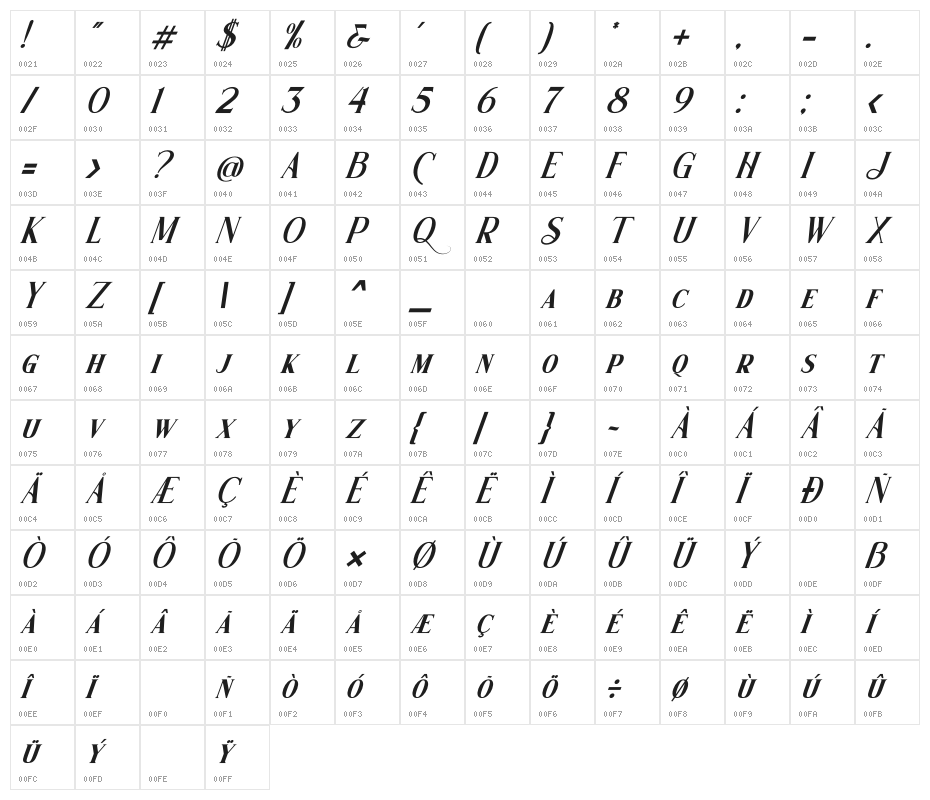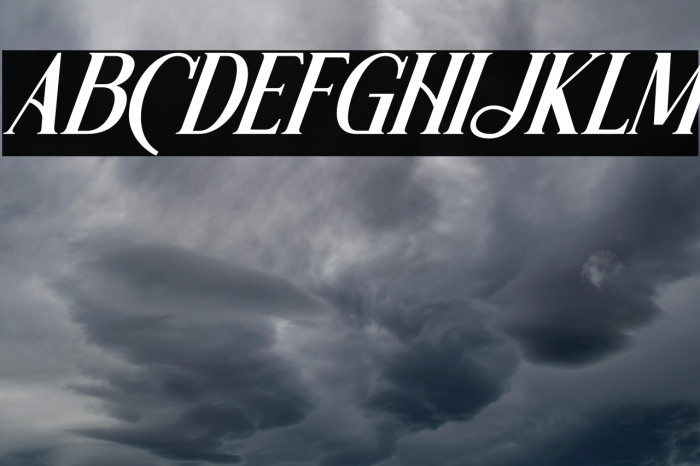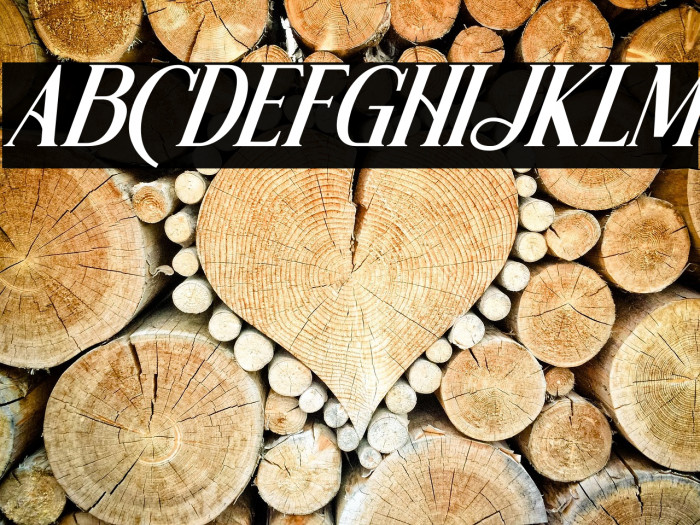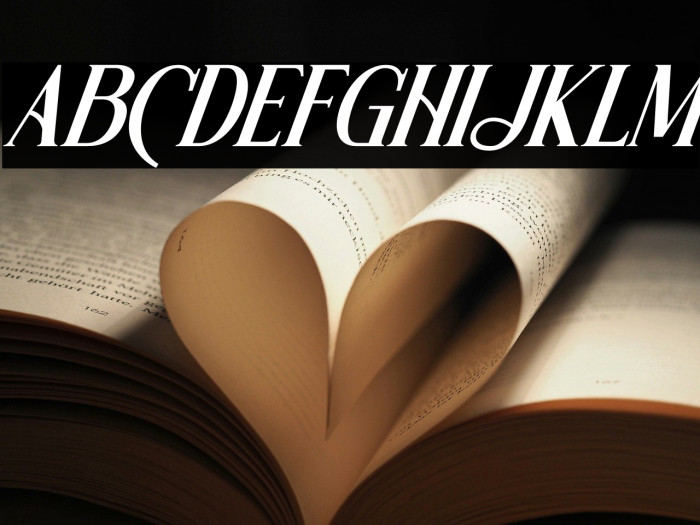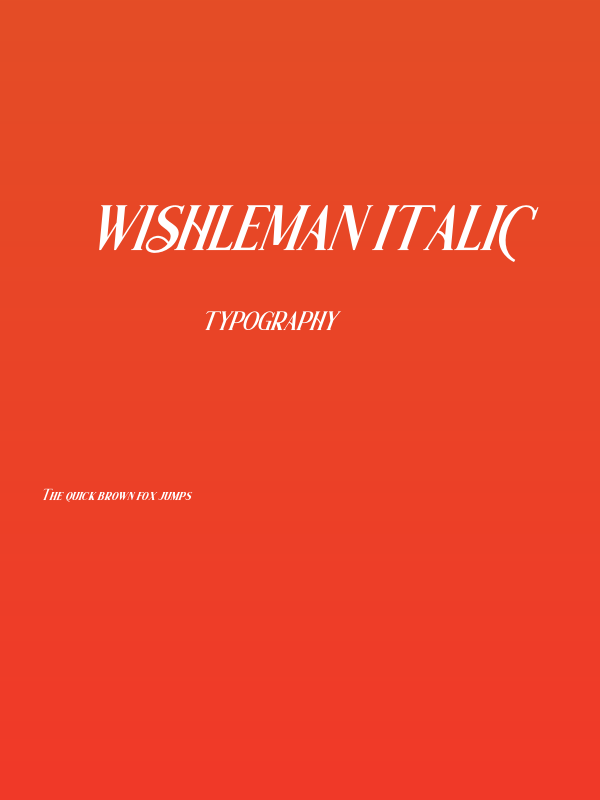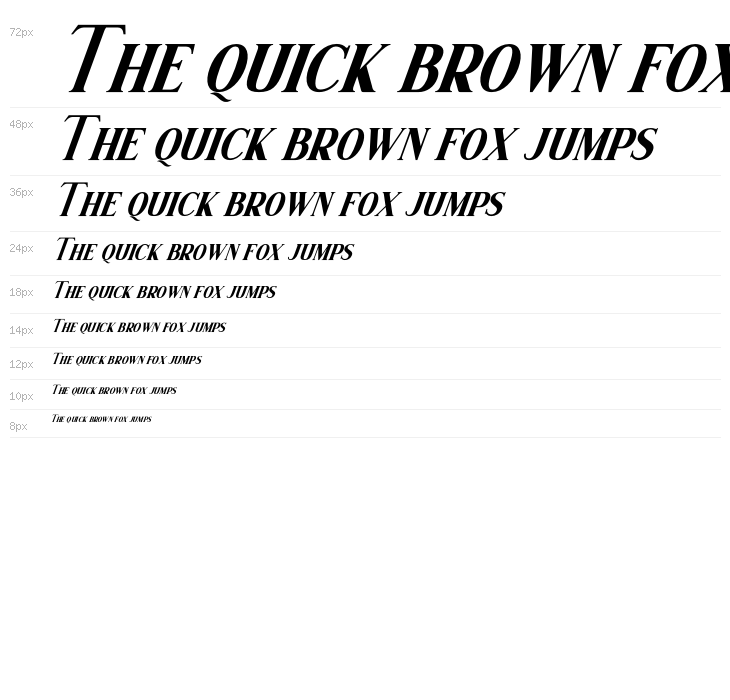
Wishleman Italic Font
Wishleman Italic Description
This font features a dynamic and elegant italic style, characterized by its slanted and flowing letterforms. The uppercase letters exhibit a sophisticated flair with distinct curves and sharp serifs, giving them a sense of movement and grace. The lowercase letters maintain a consistent italic angle, enhancing readability while preserving the font's stylish appearance. Numbers are designed with the same attention to detail, offering a harmonious blend with the alphabet. Special characters are crafted with unique touches, adding to the font's overall aesthetic appeal. The font's high contrast between thick and thin strokes contributes to its bold and striking presence, making it suitable for various design applications.
| Proposed Projects | Ideal for luxury branding, fashion magazines, elegant invitations, and sophisticated advertising campaigns. |